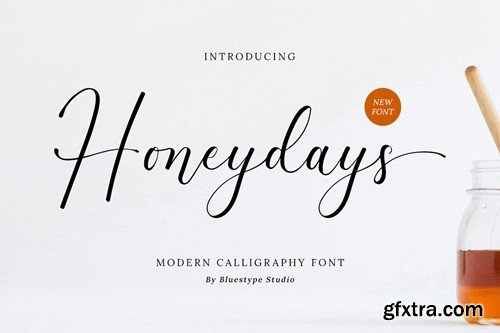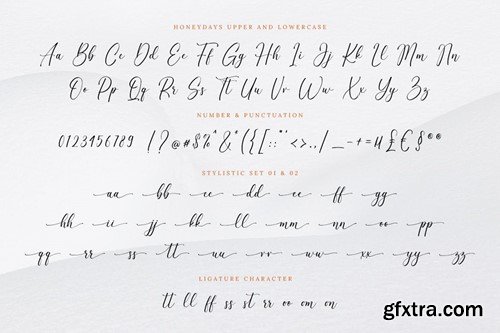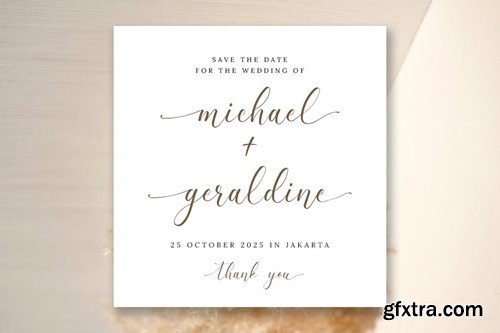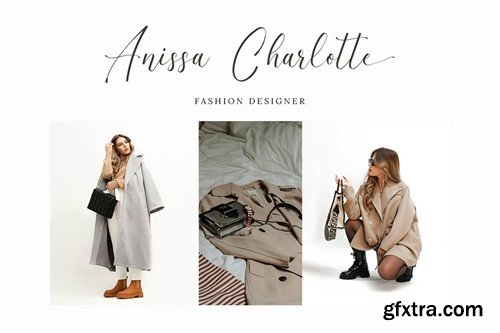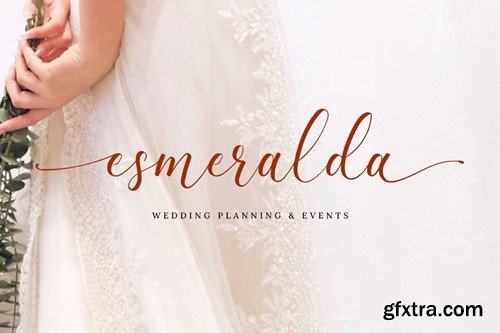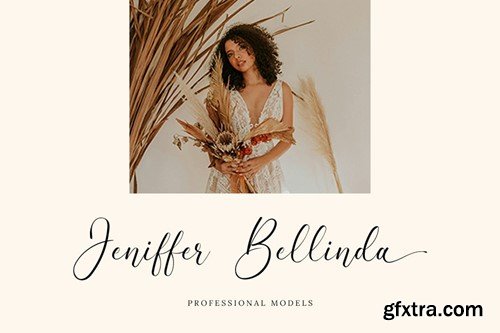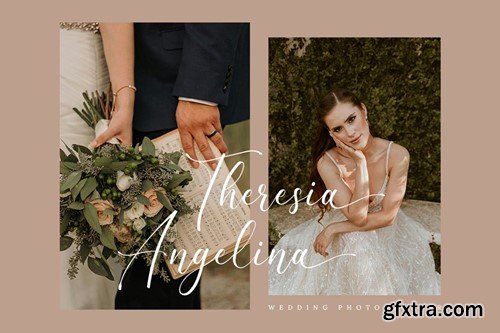
Honeydays - 现代书法字体 S2LLAMU
Honeydays - Modern Calligraphy Fonts S2LLAMU
Honeydays - Modern Calligraphy Fonts
Honeydays is a stunning calligraphy font with a natural touch and modern style. Use it for your most creative projects and see how it brings it to life. Get inspired by its modern simplicity!
Features:
• Ligature Set
• Stylistic Set 01 & 02